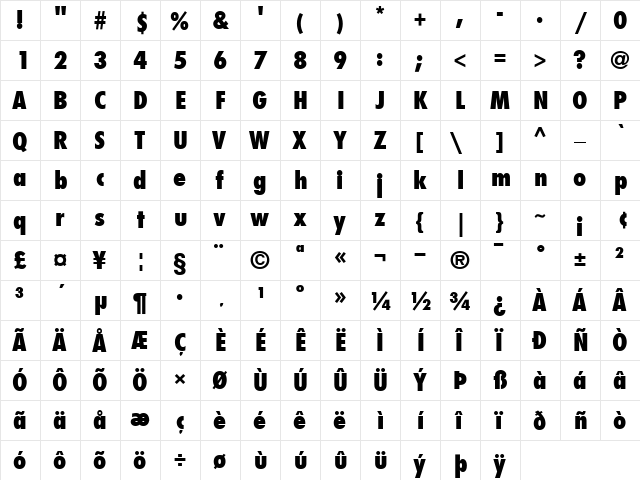
Futura-CondensedExtraBold Extra Bold Font Preview
Design Context for Futura-CondensedExtraBold Typeface
Futura-CondensedExtraBold channels digital-age aesthetics through its sharp, structured letterforms — ideal for brands that want to signal innovation. Its bold stroke weight gives it real presence on the page. Its narrow stance lets it pack a punch even in space-constrained designs.
Pro Tip: Try Futura-CondensedExtraBold with generous letter-spacing in UI labels and navigation — the geometric forms benefit from room to breathe.